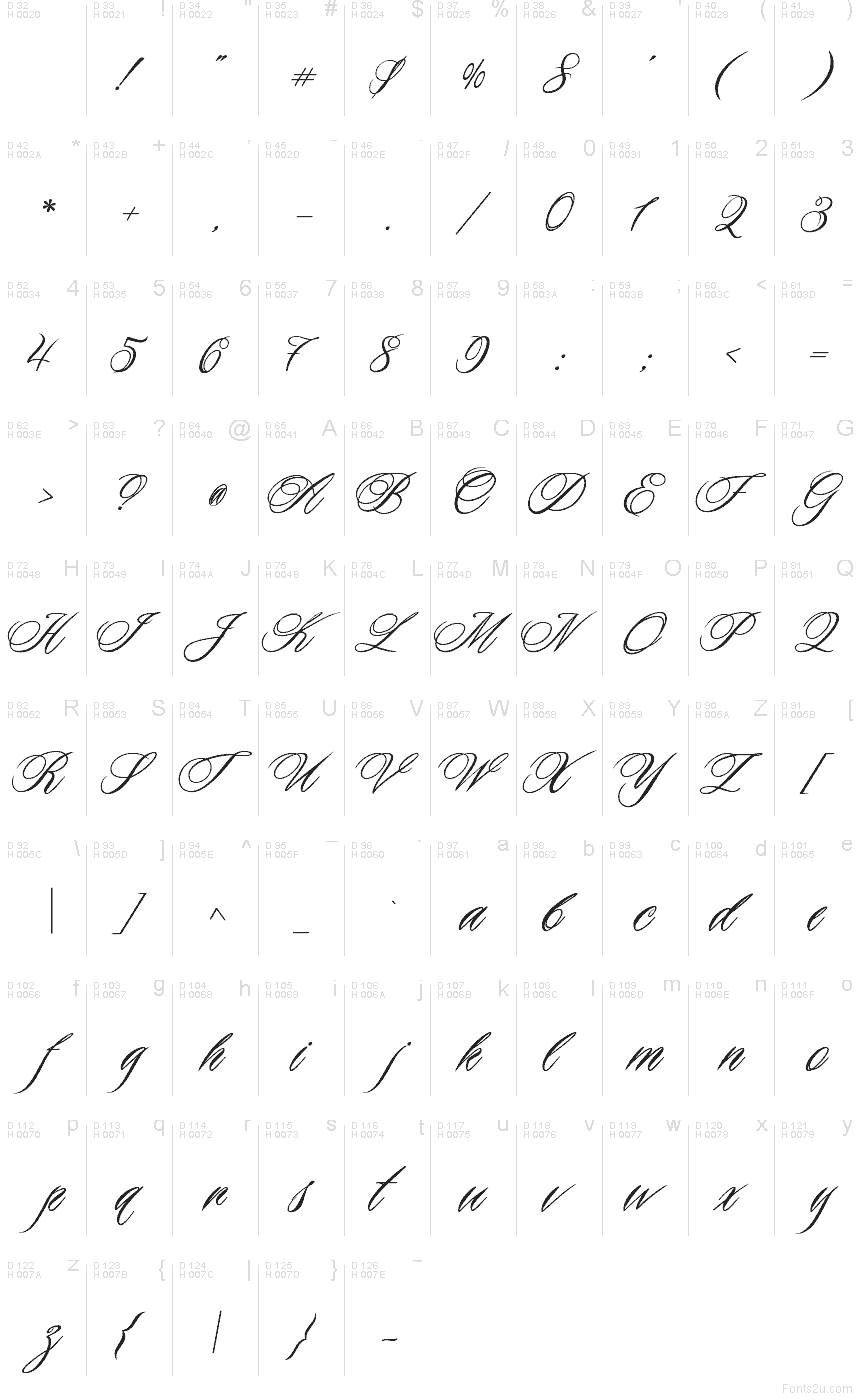
Butamah-Bold
Butamah Bold font by Rama type is a free calligraphy font that brings sweeping, ink-like elegance to any layout. Its flowing curves, long graceful strokes, and tight rhythm feel like they’ve been written with a well-loved fountain pen, adding a sense of ceremony without feeling cold or formal. The Butamah typeface keeps a welcoming warmth in its forms, so your script looks refined yet approachable rather than stiff.
Using Butamah Bold, this free font shines on wedding invitations, save-the-date cards, upscale logos, beauty or fashion branding, packaging, and romantic quote graphics. The dramatic swashes create a lush headline presence, while shorter words stay crisp and readable. Try pairing Butamah with a clean sans serif for supporting text and keep plenty of breathing room around it so the flourishes can fully unfurl.
It also includes alternate glyphs and ligatures.